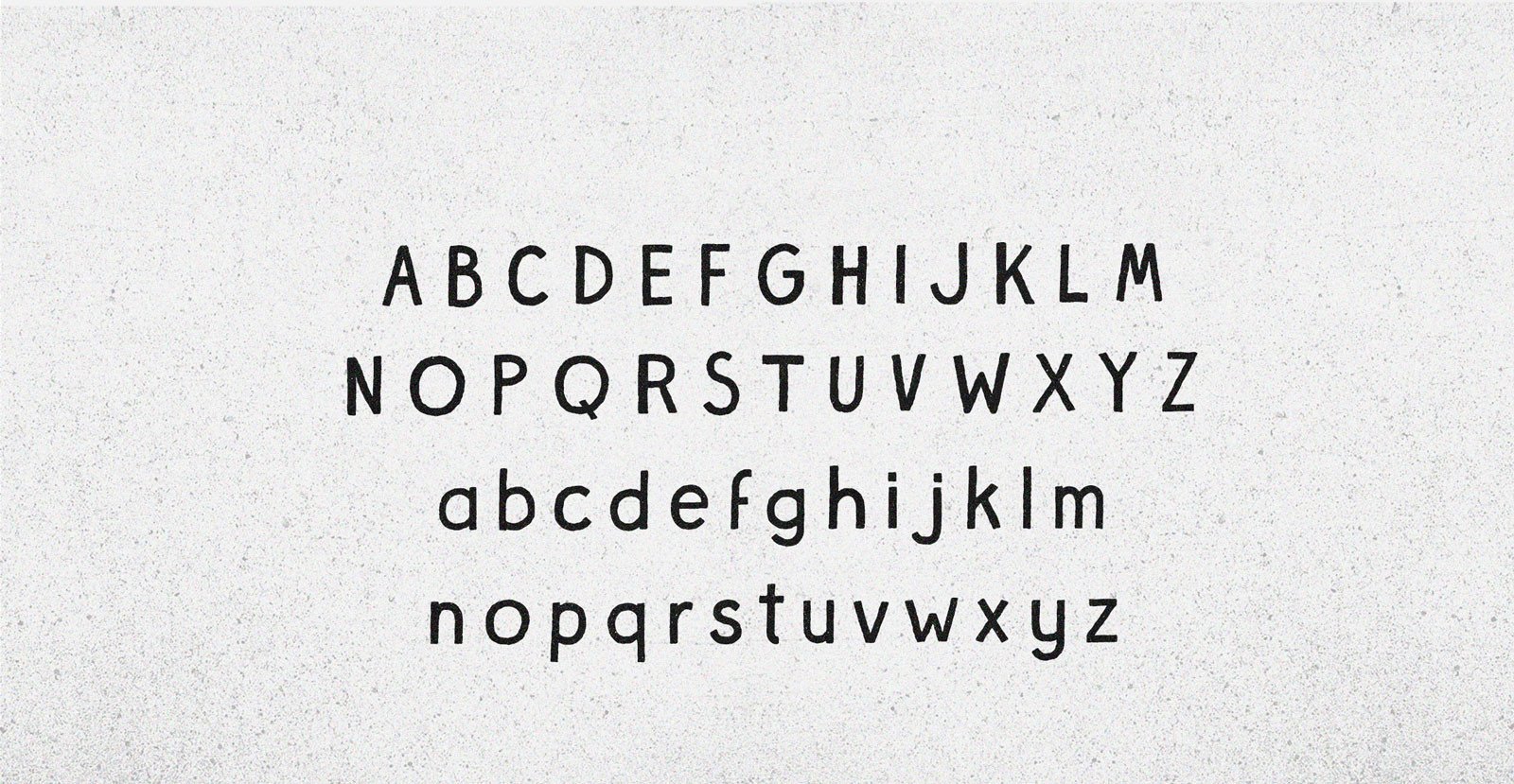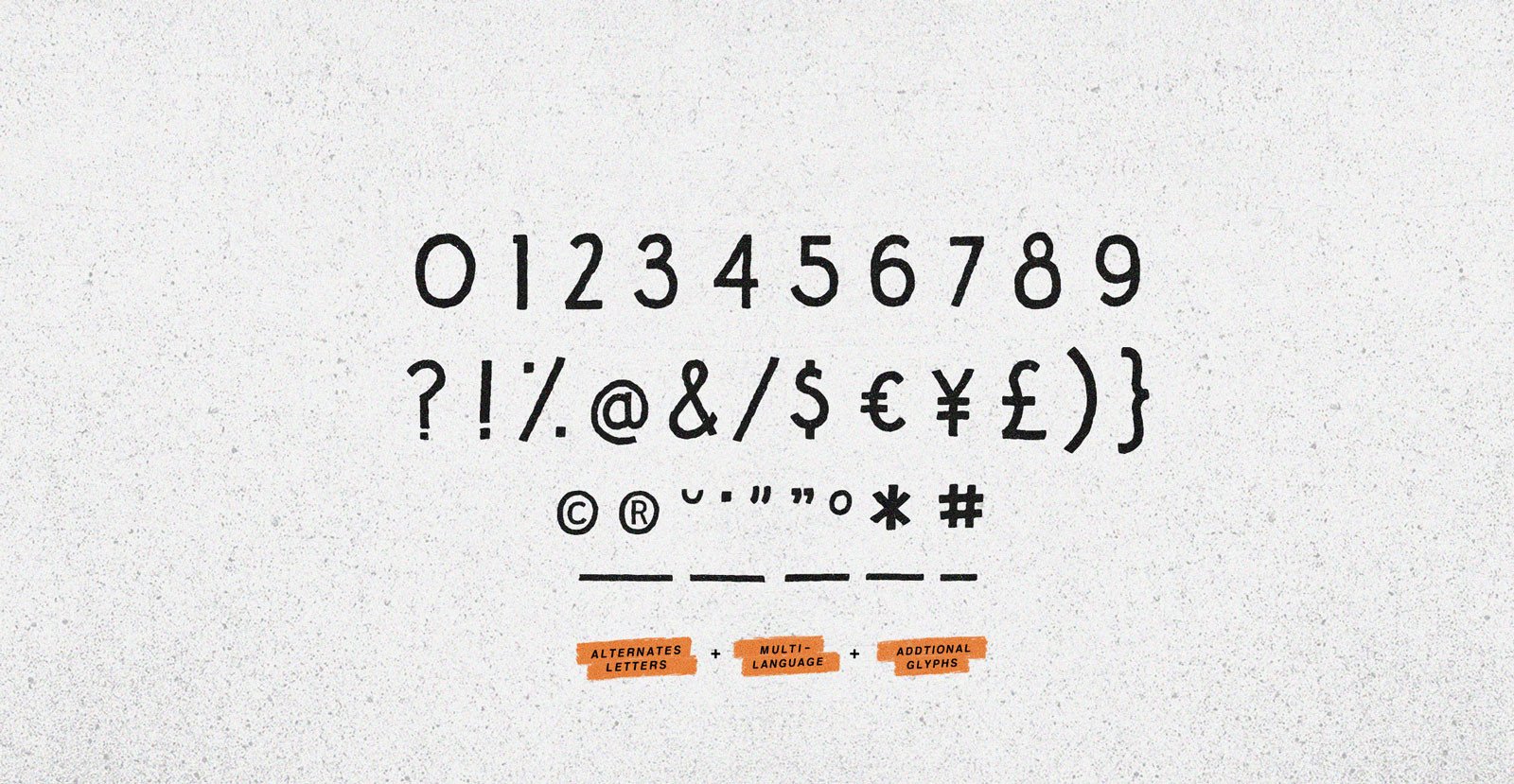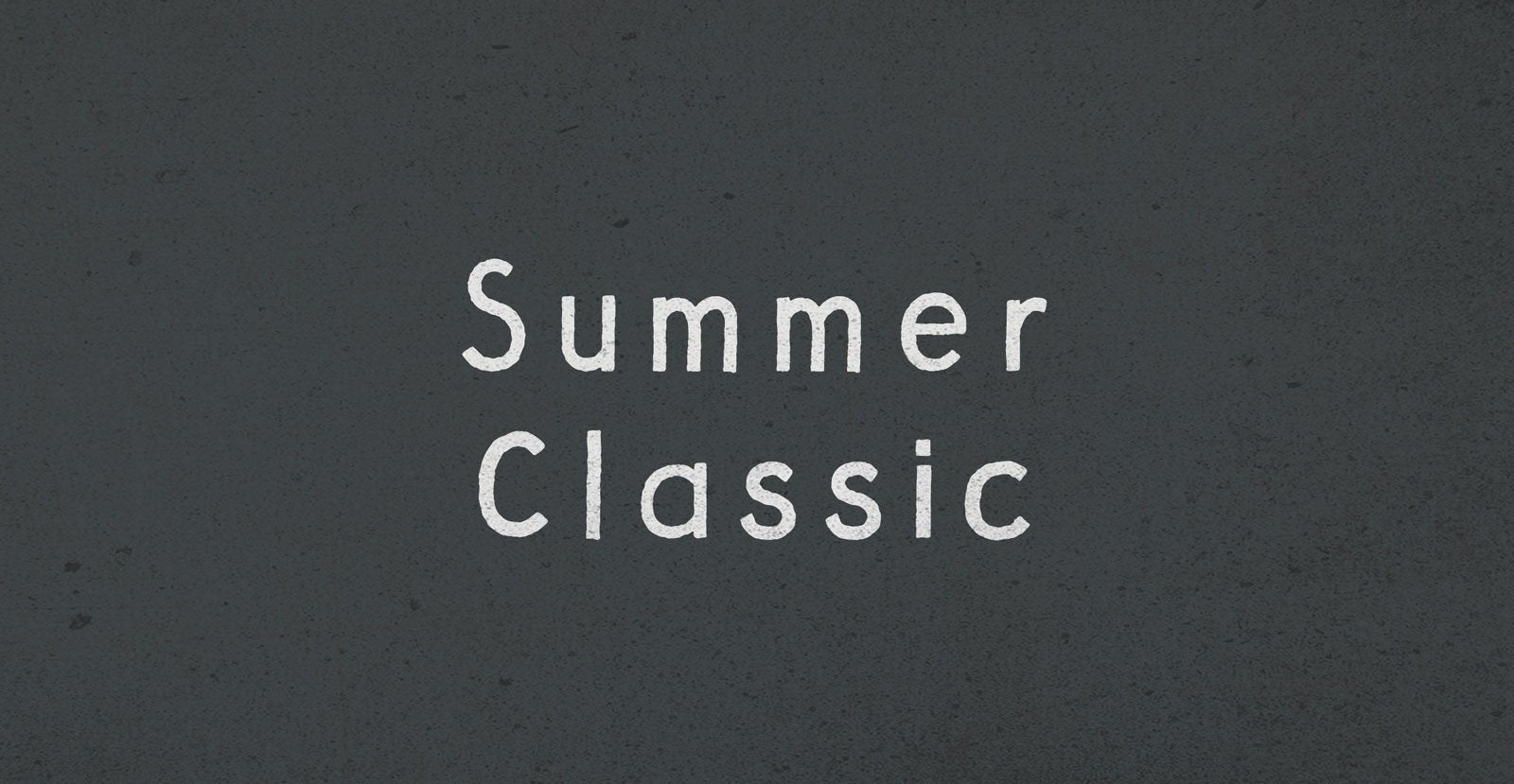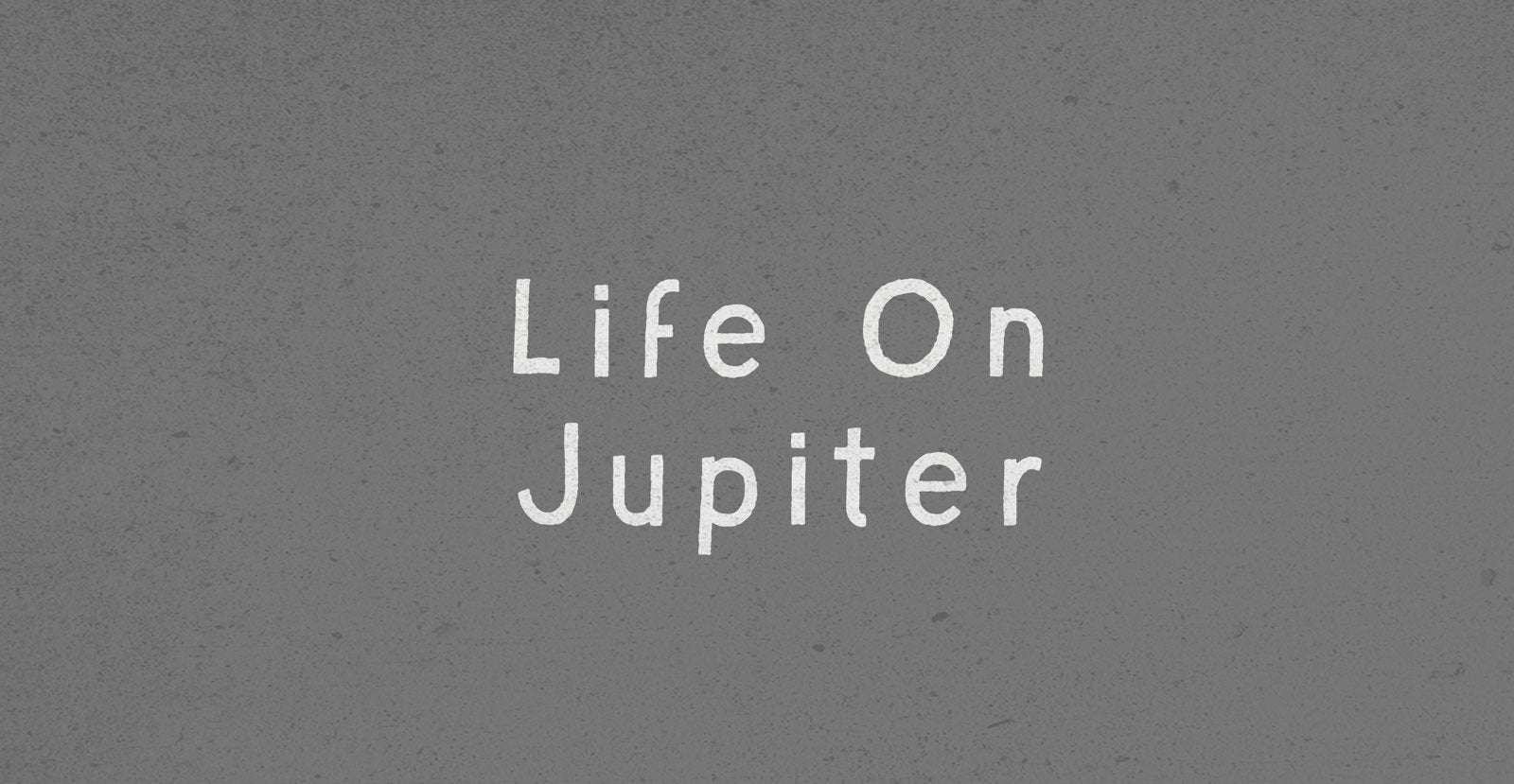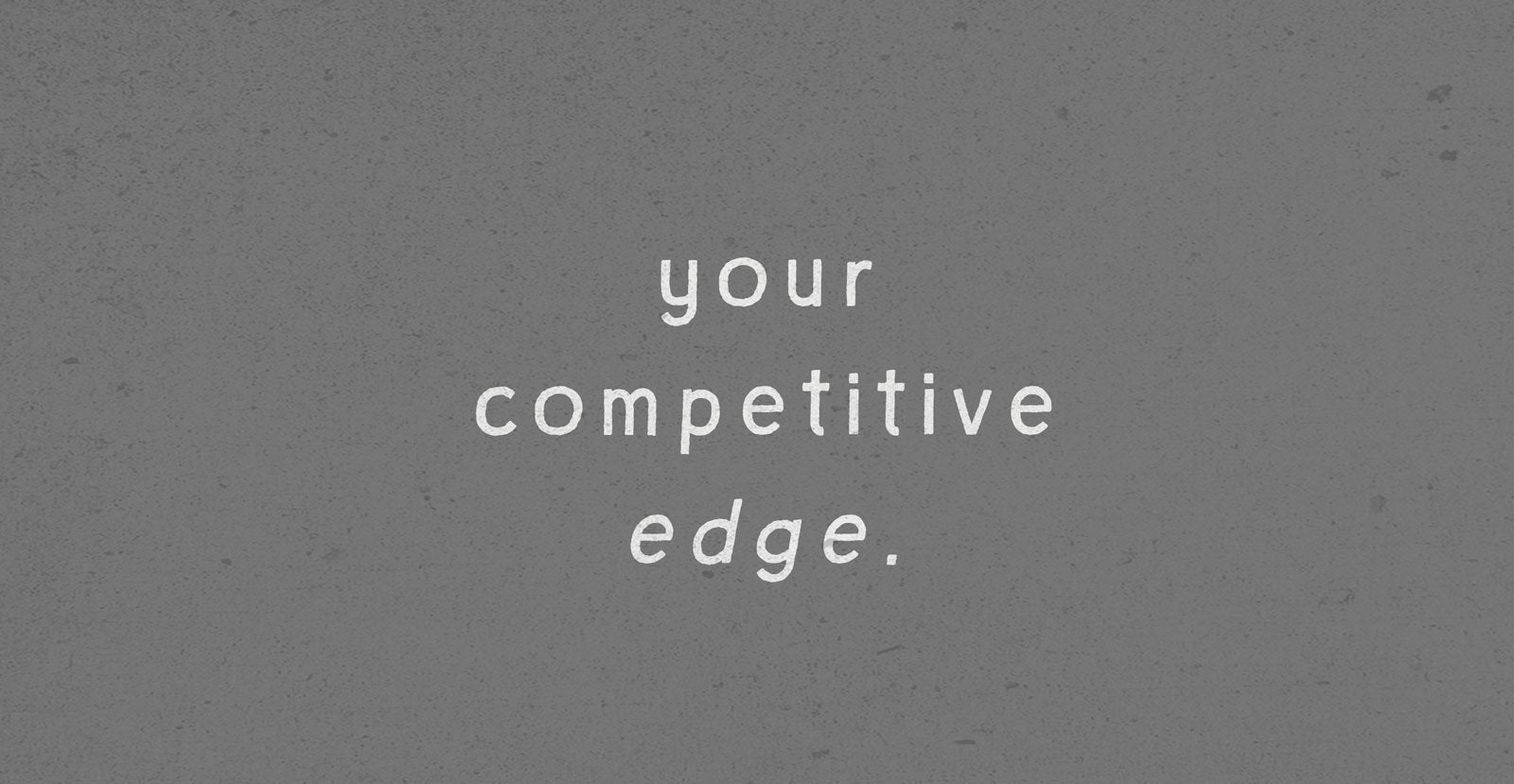
Yeah Right
Handwritten Sans Serif Font
Not far enough removed to harmonize through sarcasm, the remark struck a sour note. Skepticism, on the other hand, ducked that discord and countered with open confrontation: Yeah Right. Convince me.
• Underlines